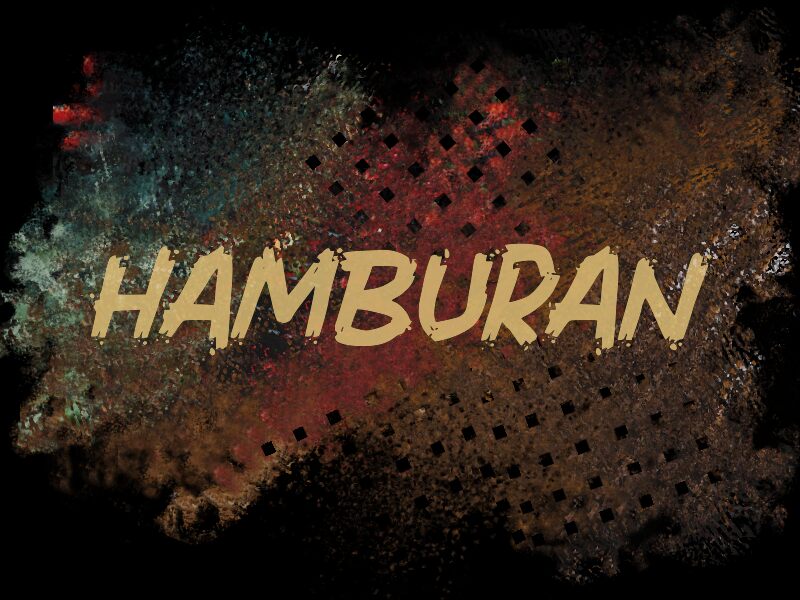
Hamburan font is a textured brush font brought to you by wep. This grungy expressive typeface has a modern, edgy style with its best asset being its versatility. Texts get the right amount of the visual effect they need while always maintaining high readability. Hamburan’s ideal place is in your headlines, logos, posters, and apparel design.
User interface design would benefit from the addition of this tool, as will user experience when it comes to web design and applications too. Other cases for which this free brush font would give you great results include product packaging/labels, invitation cards, infographics or even branding and marketing campaigns!
Hamburan